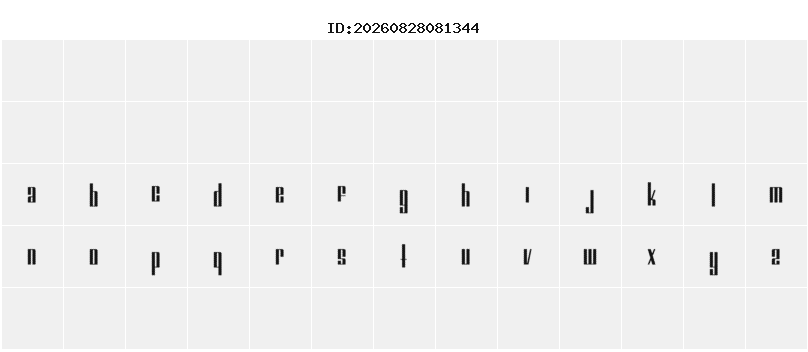
Trajma Preview
• Font Name: Trajma
• Designer: Albert Badia
• Manufacturer: Albert Badia
Trajma.ttf is a modern, elegant sans-serif font designed for ultimate readability and visual harmony. Perfect for branding, headlines, web design, and print materials.